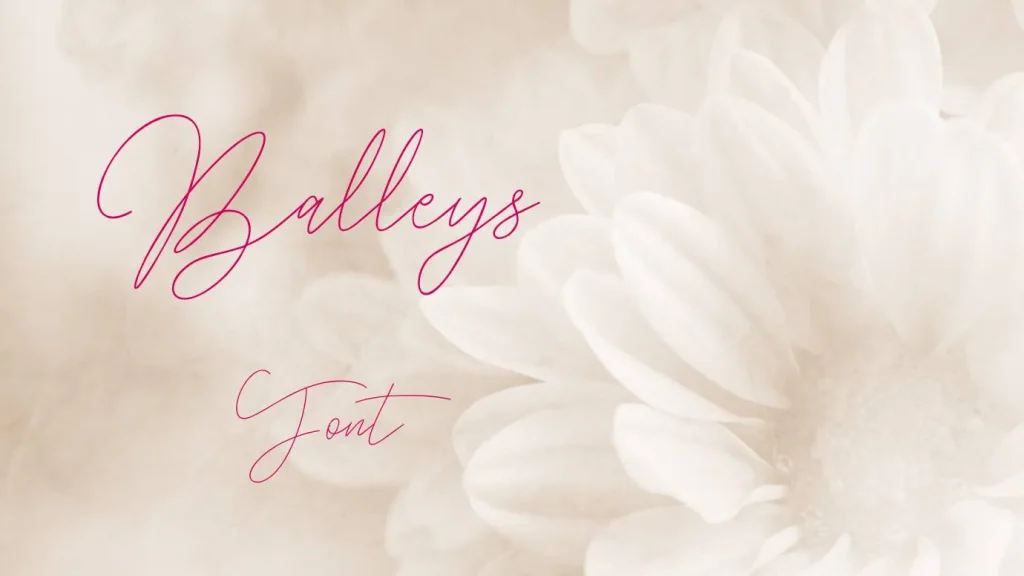
Maulana Creative designed this nice script style. You can try this design to create any kind of project. All letter of Balleys Font, containing both capital and lower letters are also included in the font stylings.
Users must try this font type design for creating catchy headers and appealing captions. For all those seeking a beautiful and cheerful atmosphere, it is ideal. There are many uses for such an adaptable font type design.
It also includes standard capitalization, variations, fashionable substitutes, and numbers. The font type may be used to create various CSS designs. An online font generator tool can also be used to create this type of design.
Features of Balleys Font
The program can also be used to create a short design. Additionally, it is suitable for designing posters and placards. Many languages are supported, starting and ending letters are included, and alternative letters can be used.
Due to its innovative and brilliant structures, it can be used for a variety of purposes. In addition to having an appealing appearance, this font can be used to design interesting logos. The Adobe applications Canva and Photoshop can be used with this design.
Also, the font text style can generate branding ventures, houseware plans, item bundling, or basically as a content overlay on any basic picture. To achieve a design that stands out and captures attention, utilize this font in conjunction with the sans forgetica font.
Details of Balleys Font
Usage of Balleys Font in Different Areas
It is suitable for labeling, emojis, symbols, writing materials, industry cards, signage, advertising material, flyers, and invitation cards.
Posters and banners are designed beautifully in this beautiful. Due to its advanced and brilliant features, it can be used for a variety of purposes.